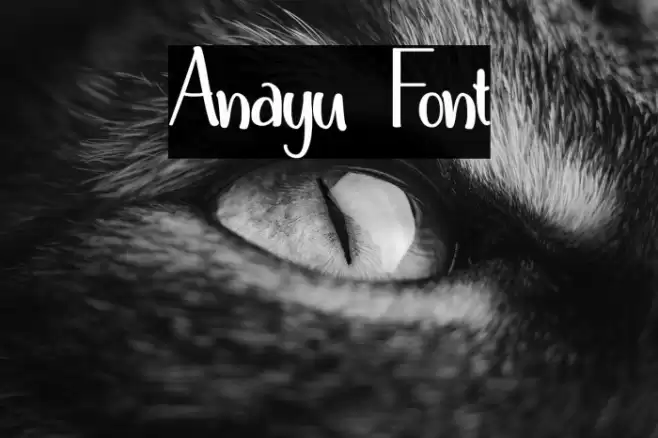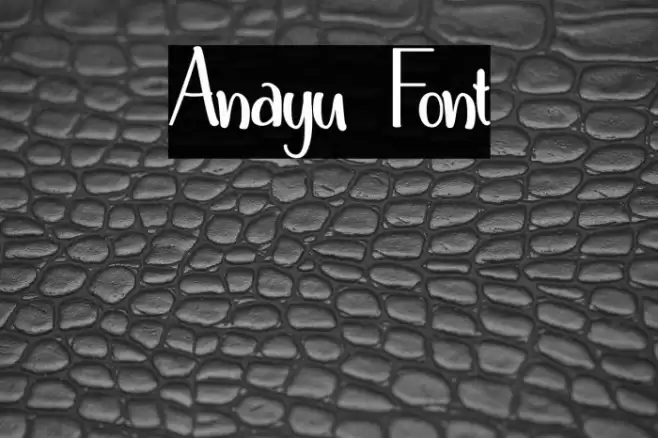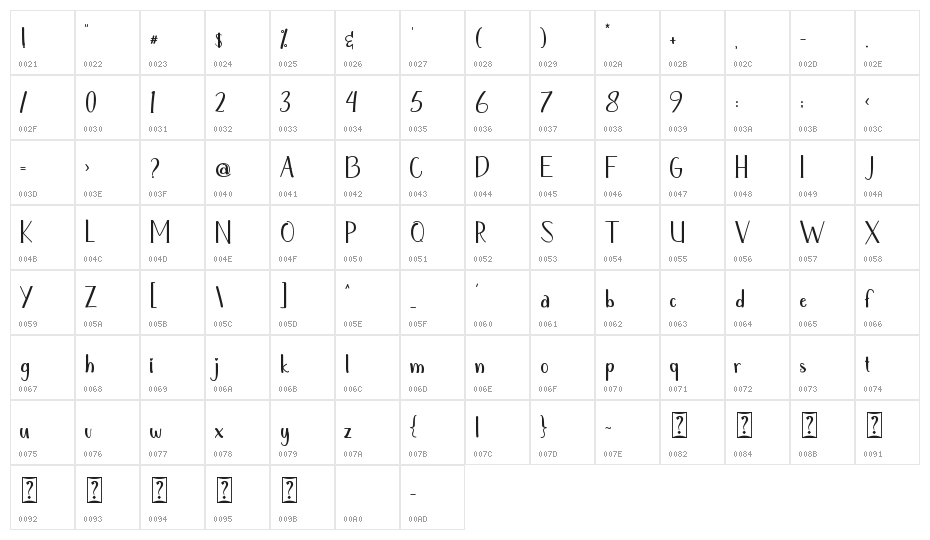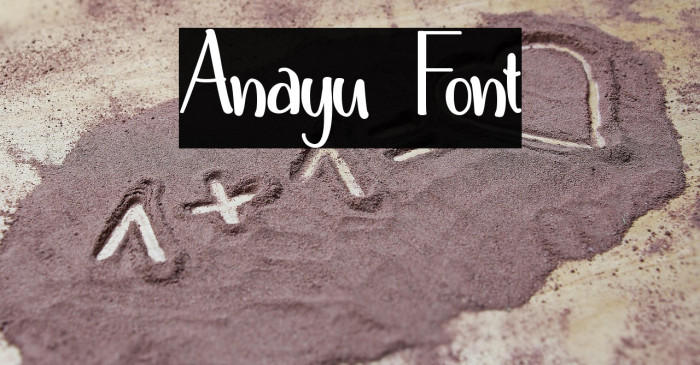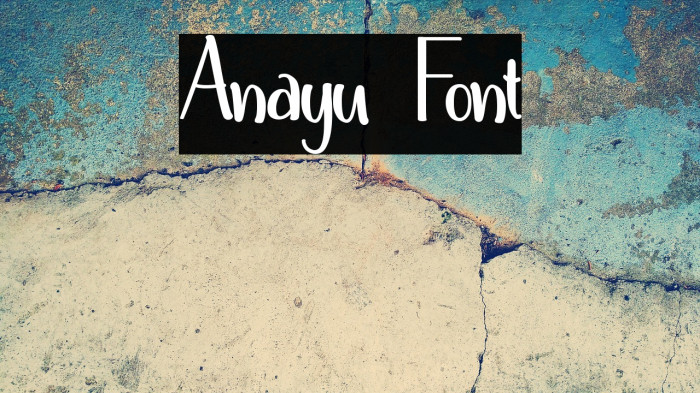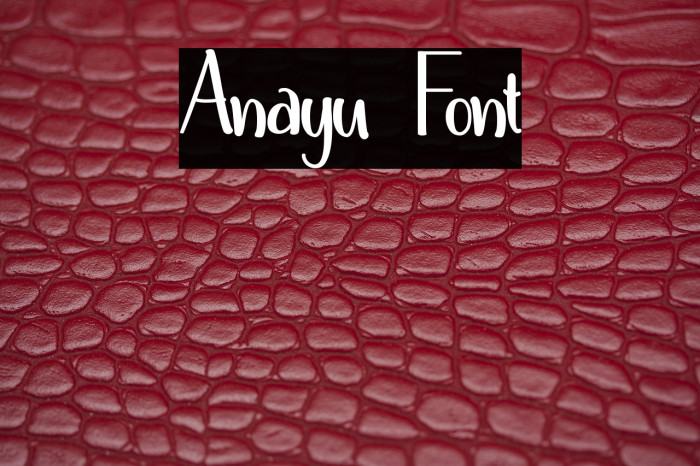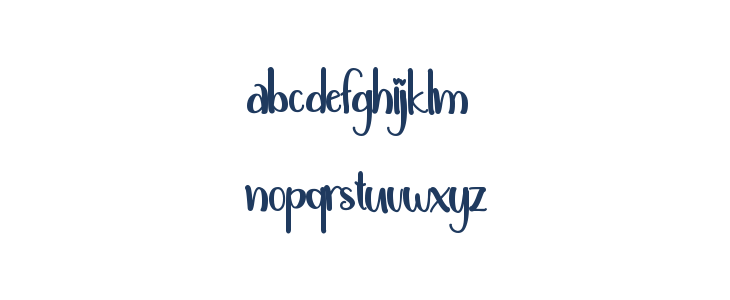
Anayu Font
Anayu Description
This font features a playful and whimsical design, characterized by its tall, narrow letterforms and slightly irregular strokes. The uppercase letters are particularly elongated, with a mix of straight and curved lines that give them a dynamic appearance. The lowercase letters maintain a consistent style, with rounded edges and a friendly, approachable feel. The numerals are clear and easy to read, while the special characters add a touch of flair with their unique shapes. Overall, this font exudes a sense of fun and creativity, making it ideal for projects that require a lively and engaging aesthetic.
A playful and whimsical font with tall, narrow letterforms and dynamic strokes from Regular fonts.
- Font: Anayu
- Proposed Projects: Ideal for children's books, playful branding, creative posters, and invitations.
- Overall Style: Playful